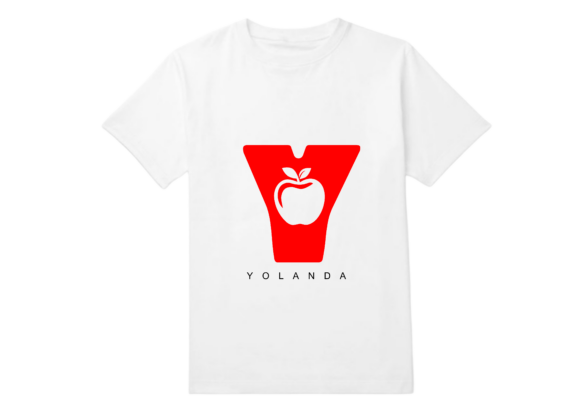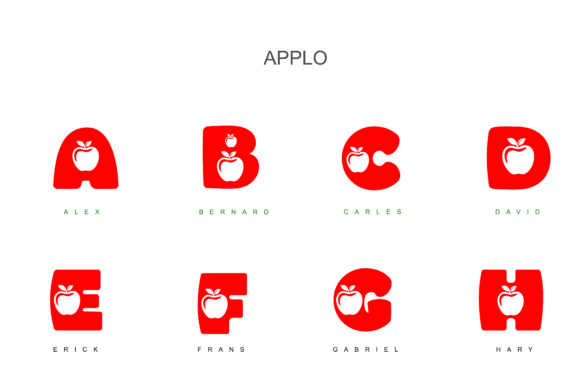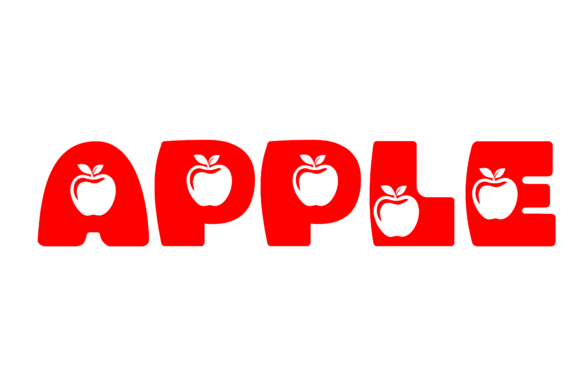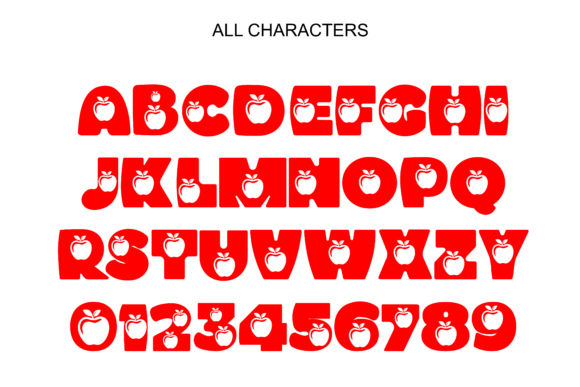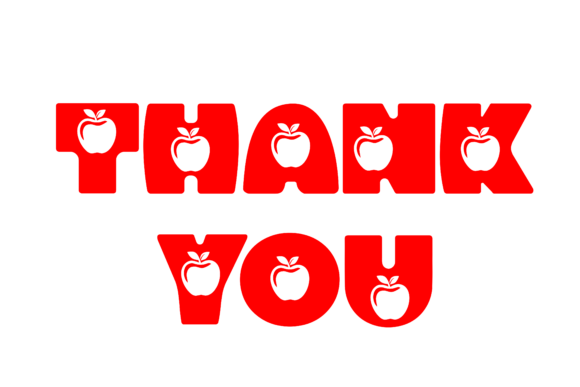
Introducing Applo Font: The Quirky and Whimsical Display Font with an Apple Twist
Are you tired of using the same old fonts for your design projects? Look no further than Applo Font, a quirky and rounded display font that’s sure to add a touch of whimsy to your creations. What sets Applo apart is its unique incorporation of apple motifs into each letter, making it a standout choice for designers and crafters looking for a font that’s both fun and functional.
The Perfect Font for Learning Materials and Kids’ Products
Applo Font’s soft and approachable look makes it an ideal choice for learning materials, kids’ products, and playful brand identities. The font’s rounded edges and apple motifs evoke a sense of friendliness and approachability, making it perfect for designs aimed at a younger audience. Whether you’re creating educational materials, children’s books, or toys, Applo Font is sure to delight your target audience.
Nutrition-Themed Projects Get a Boost with Applo Font
But Applo Font isn’t just limited to learning materials and kids’ products. Its apple motifs also make it a great choice for nutrition-themed projects, such as cookbooks, recipe blogs, or healthy food branding. The font’s playful and approachable vibe helps to convey a sense of freshness and wholesomeness, making it perfect for designers looking to create a healthy and organic feel.
What Makes Applo Font So Special?
So, what makes Applo Font so special? Here are just a few features that set it apart:
• Unique Apple Motifs: Each letter in the Applo Font features a unique apple motif, adding a touch of whimsy and fun to your designs.
• Rounded Edges: The font’s rounded edges give it a soft and approachable look that’s perfect for designs aimed at a younger audience.
• Quirky and Playful: Applo Font has a quirky and playful vibe that’s sure to add a touch of personality to your designs.
How to Use Applo Font in Your Designs
Applo Font is easy to use and can be incorporated into a variety of design projects. Here are a few ideas to get you started:
• Learning Materials: Use Applo Font to create engaging and interactive learning materials, such as worksheets, activity sheets, and educational posters.
• Kids’ Products: Applo Font is perfect for kids’ products, such as toys, games, and children’s books.
• Nutrition-Themed Projects: Use Applo Font to create healthy and organic branding, cookbooks, and recipe blogs.
• Playful Brand Identities: Applo Font is also great for creating playful brand identities, such as logos, business cards, and social media graphics.
Tips for Getting the Most Out of Applo Font
Here are a few tips for getting the most out of Applo Font:
• Experiment with Colors: Applo Font looks great in a variety of colors, so don’t be afraid to experiment and find the perfect hue for your design.
• Mix and Match: Try mixing and matching Applo Font with other fonts to create a unique and eye-catching design.
• Use it in Combination with Images: Applo Font looks great in combination with images, so try using it to add a touch of personality to your graphics and illustrations.
Applo Font is a quirky and whimsical display font that’s sure to add a touch of fun and personality to your designs. With its unique apple motifs, rounded edges, and playful vibe, it’s perfect for learning materials, kids’ products, nutrition-themed projects, and playful brand identities. So why not give Applo Font a try and see how it can elevate your designs?